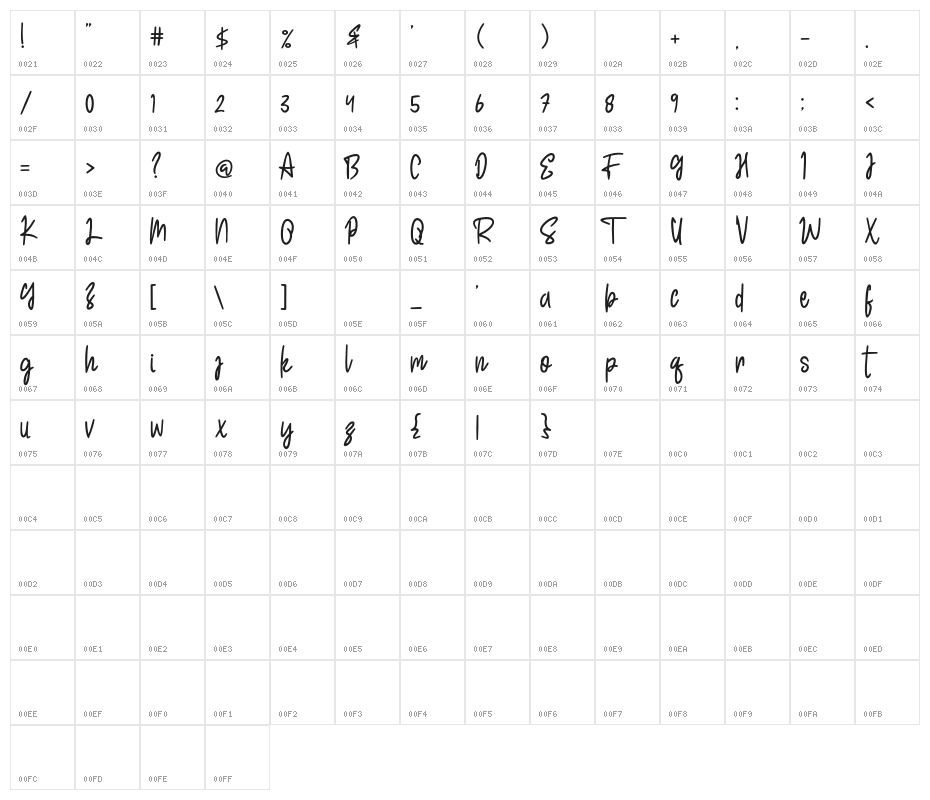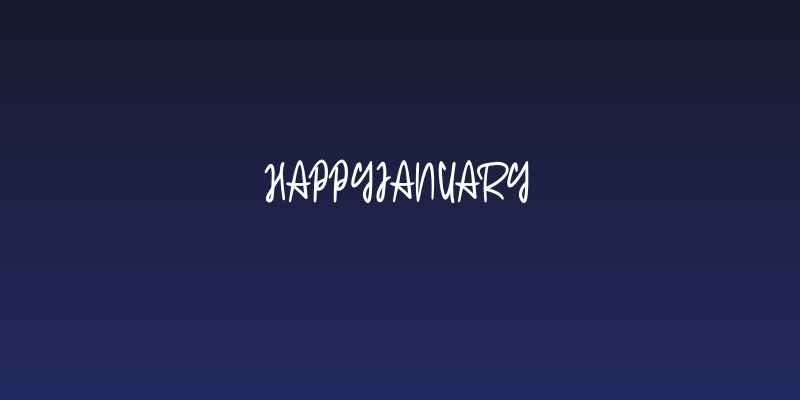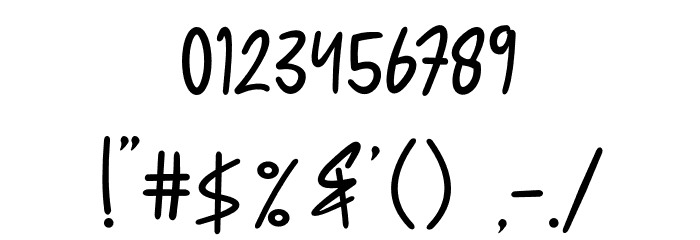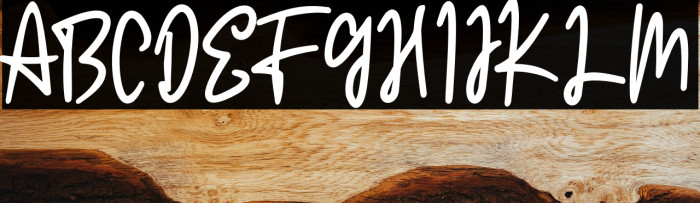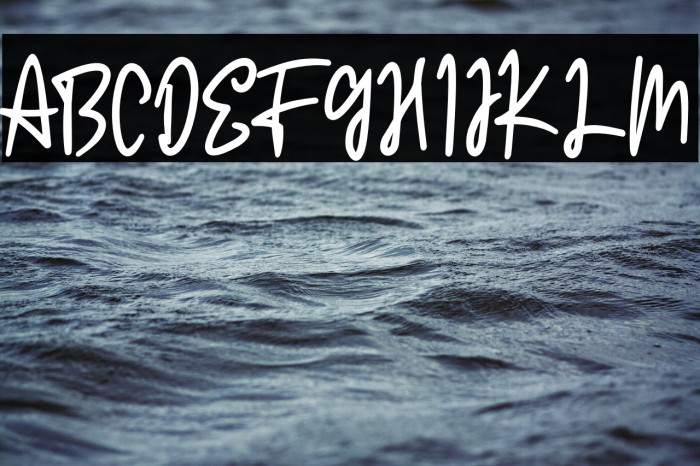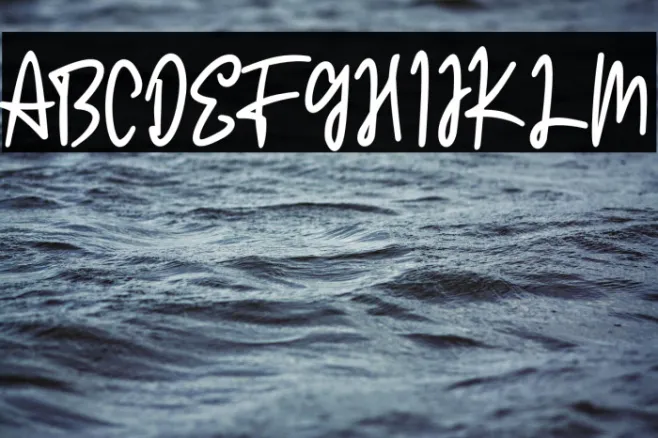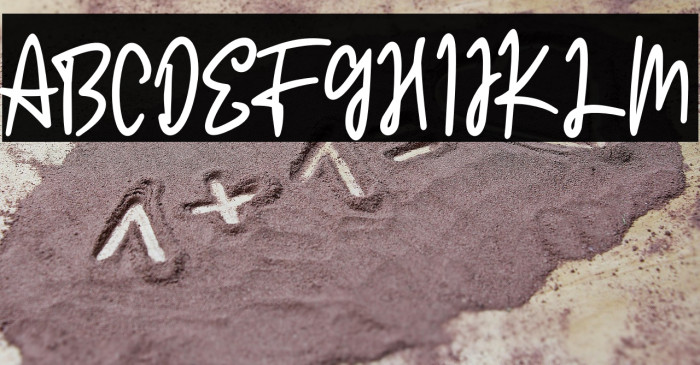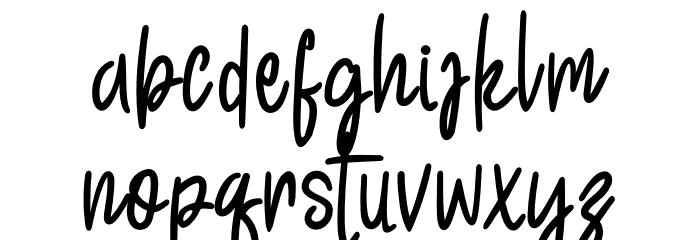
HappyJanuary Font
HappyJanuary Description
This font features a playful and energetic handwritten style, characterized by its fluid and dynamic strokes. The letters are slightly slanted, giving a casual and informal appearance. The uppercase and lowercase letters maintain a consistent style, with rounded edges and a smooth flow. The numbers and special characters are designed to match the overall aesthetic, providing a cohesive look. The font exudes a sense of creativity and spontaneity, making it ideal for projects that require a personal touch.
| Overall Style | Casual, Creative |
| Use Case | Headlines, Invitations, Personal Branding |
| Proposed Projects | Ideal for greeting cards, invitations, personal branding, and creative projects that require a casual and friendly tone. |